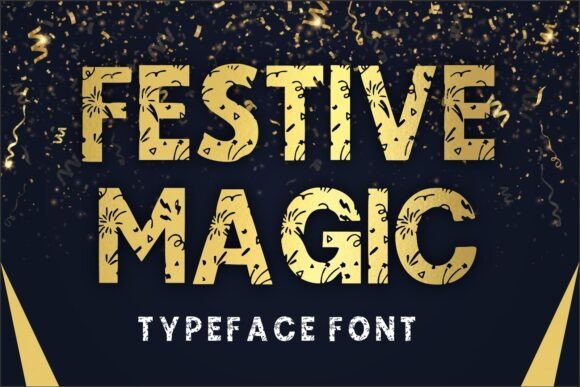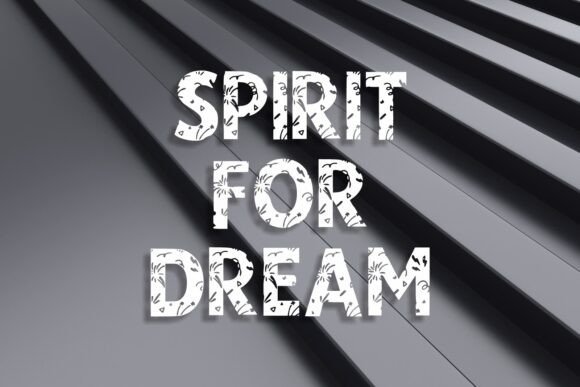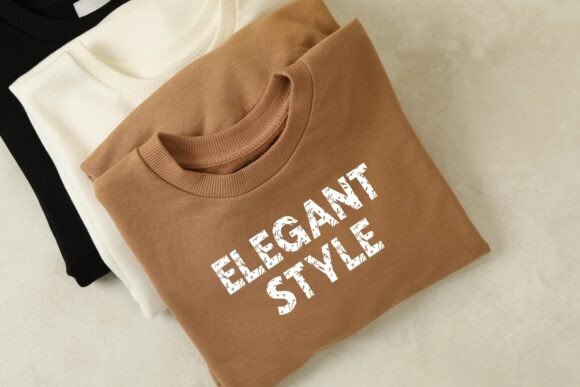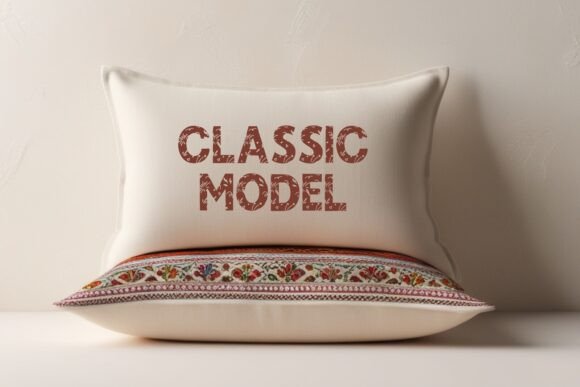
Festive Magic Font
About the Festive Magic Font
Add a touch of class to your work with the Festive Magic Font, a truly exceptional typeface. Festive Magic is a bold, party-inspired display font bursting with confetti, sparkles, and celebration vibes! Perfect for holiday cards, New Year’s graphics, party invitations, and anything that needs a joyful, high-energy touch. With its decorative fireworks and dynamic style, it instantly adds a pop of fun and festivity.
Its playful, high-impact design makes Festive Magic ideal for headlines, short taglines, and eye-catching logos where a bold statement is needed. It excels in applications like posters, social media graphics, and packaging for products targeting a young, energetic demographic. However, its decorative nature makes it unsuitable for body text or lengthy passages; readability suffers at smaller sizes.
Consider pairing Festive Magic with a clean sans-serif like Open Sans for body copy or a more elegant serif like Playfair Display for a sophisticated contrast. For a more playful combination, a rounded geometric sans-serif such as Poppins could work well. The key is to select a contrasting but complementary typeface that balances the font’s exuberance.
Festive Magic’s core personality is undeniably joyous and celebratory. Brands focused on fun, events, children’s products, or holiday-themed items will find it particularly effective in conveying the desired mood.
Festive Magic Font Usage Examples
Festive Magic Font Example